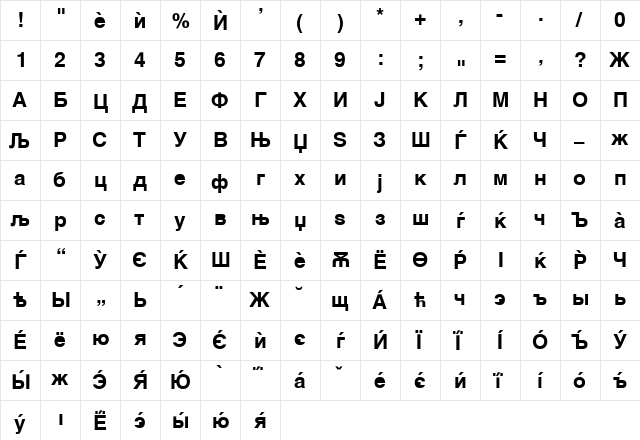
Makedonska Helvetika Bold
Design Context for Makedonska Helvetika Typeface
Makedonska Helvetika is a composed and adaptable typeface that performs quietly and consistently across a wide range of design contexts. The heavy weight commands attention and anchors typographic hierarchies.